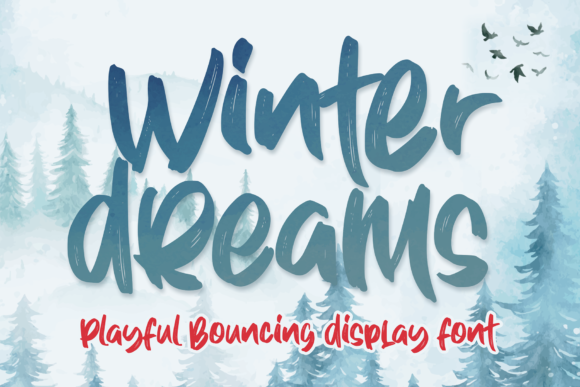
Unleash the Charm of Winter Dreams Font: The Epitome of Elegance for Wedding Invitations
In the realm of typography, Winter Dreams Font emerges as a captivating display font, exuding a playful and relaxed aura. Its remarkable versatility lends itself seamlessly to a myriad of design projects, promising an outcome that will captivate and inspire.
Picture this: a wedding invitation adorned with the graceful strokes of Winter Dreams, its brushed texture evoking a sense of warmth and intimacy. Each letter dances across the page, carrying with it a tale of love and joy. The font's innate charm effortlessly elevates the occasion, transforming a simple invitation into a cherished keepsake.
Winter Dreams is more than just a font; it's an artistic expression of love, friendship, and the promise of a lifetime together. Its whimsical nature lends itself perfectly to save-the-date cards, RSVPs, and wedding programs, creating a cohesive and visually stunning suite that reflects the unique bond shared by the couple.
But Winter Dreams' allure extends far beyond the realm of weddings. Its versatility shines in logos, branding, posters, and social media graphics, adding a touch of sophistication and charm to any project. Its ability to effortlessly convey a sense of joy and celebration makes it an ideal choice for birthday cards, party invitations, and other festive occasions.
Embrace the beauty of Winter Dreams and let your creativity soar. Its versatility and charm will transform your designs into breathtaking works of art, leaving a lasting impression on all who behold them.